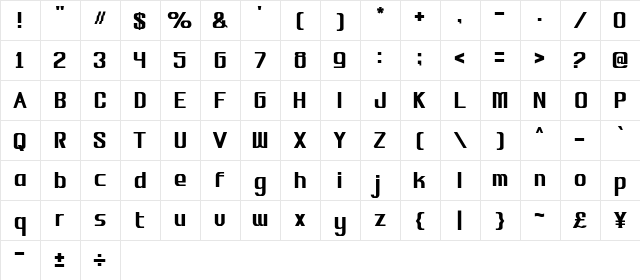
BIOSI Regular
Design Context for BIOSI Typeface
BIOSI takes a measured approach to typography — its balanced proportions and neutral character make it a reliable workhorse for both digital and print work.
Pro Tip: Use BIOSI in both headline and body roles to test its range before committing to a single application.